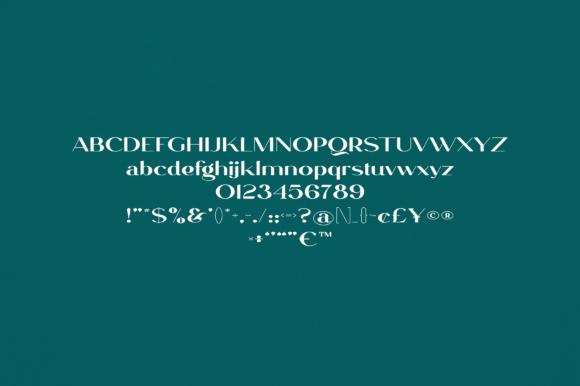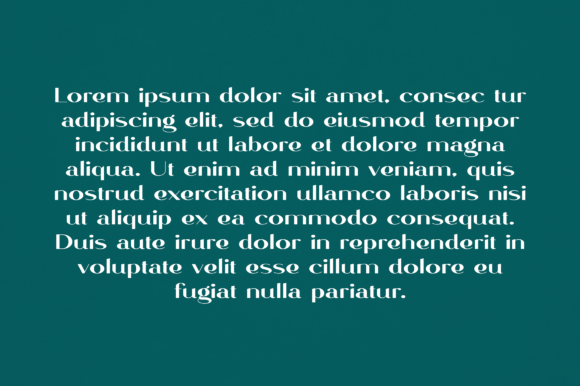
Introducing Destry Font: Elevate Your Typography with Elegance and Versatility
In the world of design, typography plays a crucial role in conveying messages, expressing creativity, and establishing brand identity. A font can make or break the visual appeal of a project, which is why designers and crafters are constantly on the lookout for unique and versatile typefaces. If you’re searching for a font that can add a touch of elegance and sophistication to your designs, look no further than Destry Font.
A Font that Enchants
Destry is an elegant and versatile font that will make your typography truly unique. Its sophisticated design will enchant every logo, branding, headline, or plain text, making it perfect for a wide range of applications. Whether you’re working on branding projects, home-ware designs, product packaging, magazine headers, or simply looking for a stylish text overlay to any background image, Destry Font is the perfect choice.
Key Features of Destry Font
- Elegant Design: Destry Font boasts an elegant design that exudes sophistication and refinement. Its sleek lines, curves, and proportions make it perfect for designs that require a touch of luxury.
- Versatility: This font is incredibly versatile, making it suitable for a wide range of applications, from branding and advertising to packaging and editorial design.
- Unique Typography: Destry Font features a unique and distinctive typography that will set your designs apart from the rest. Its elegant design ensures that your text will be noticed and remembered.
- Easy to Read: Despite its elegant design, Destry Font is easy to read, making it perfect for body text, headlines, and titles.
Use Cases for Destry Font
Destry Font is perfect for a wide range of design projects, including:
- Branding Projects: Establish a strong brand identity with Destry Font. Its elegant design makes it perfect for logos, business cards, and letterheads.
- Home-Ware Designs: Add a touch of sophistication to your home-ware designs, such as labels, packaging, and instruction manuals.
- Product Packaging: Make your product stand out on store shelves with Destry Font. Its elegant design is perfect for product labels, packaging, and marketing materials.
- Magazine Headers: Create stunning magazine headers and titles with Destry Font. Its unique typography will grab the attention of your readers.
- Text Overlays: Use Destry Font as a stylish text overlay to any background image. Its elegant design will add a touch of sophistication to your designs.
Why Choose Destry Font?
With so many fonts available, why choose Destry Font? Here are just a few reasons:
- Unique Design: Destry Font features a unique and distinctive design that will set your designs apart from the rest.
- High-Quality: This font is designed with high-quality and precision, ensuring that it will look great in any design.
- Versatility: This font is incredibly versatile, making it suitable for a wide range of applications.